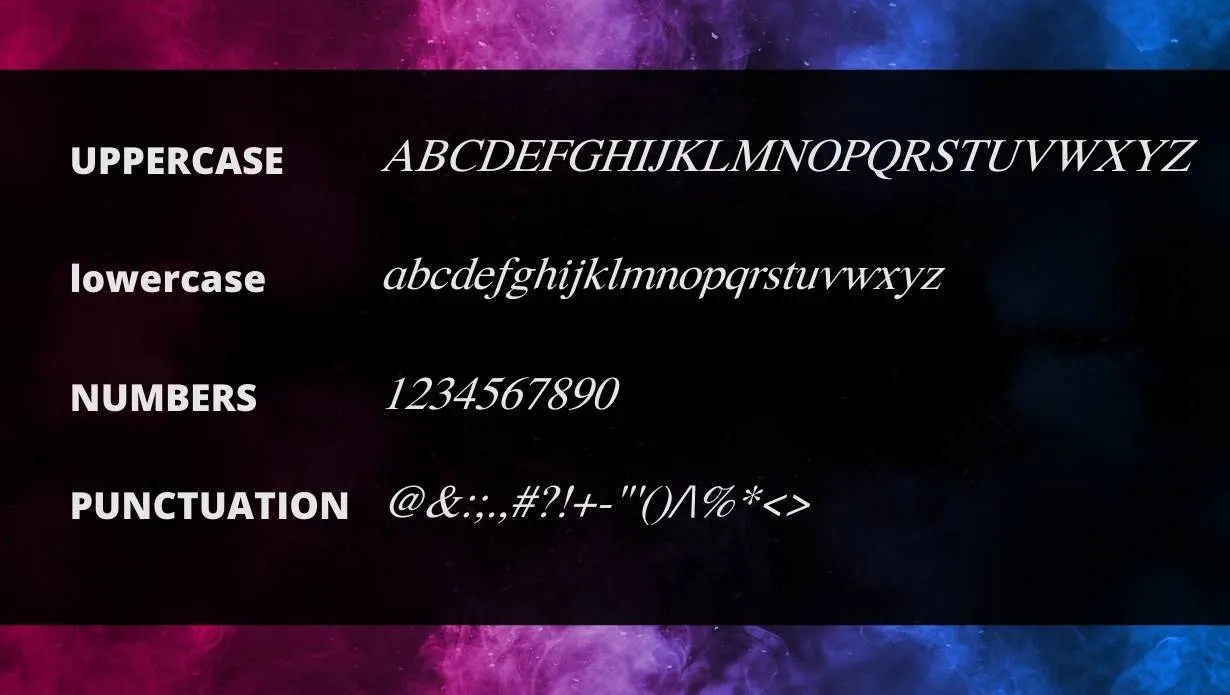
Happy Time Font was created by graphic designer JesseGeneration in 2020. The Typeface was inspired by the Happy Time TV show, which aired from 1968 to 1972. The font is a serif typeface and includes both upper and lowercase letters, numbers, and symbols.
View of Happy Time Font
Happy Time Font Info
| Name | Happy Time Font |
| Designer | Raul Garcia del Pomar |
| Style | Serif |